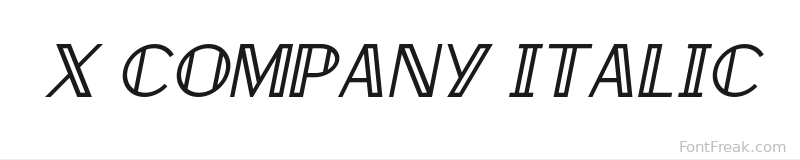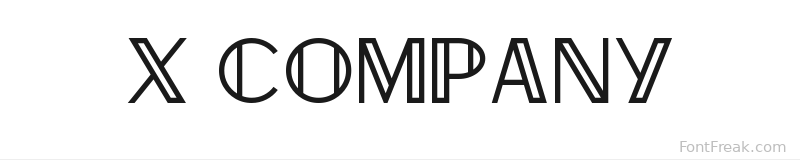
X Company
X Company Italic
About X Company
Introducing the X Company font by GGBot, a stunning example of modern typography that combines elegance with versatility. This font belongs to the sans-serif category, characterized by its clean and contemporary lines. The X Company font features a balanced stroke weight, ensuring clarity and readability in various sizes. The design exhibits a subtle contrast between thick and thin strokes, providing a dynamic visual appeal while maintaining simplicity. The spacing is meticulously crafted, allowing for optimal legibility in both digital and print formats.
Ideal for a range of creative applications, the X Company font is perfect for branding projects, restaurant menus, and promotional materials. Its modern aesthetic makes it a fantastic choice for tech startups or contemporary businesses looking to make a strong impression. Additionally, it can be effectively used in social media graphics and website headers, where a clean and professional appearance is paramount. Graphic designers and content creators will find this font particularly appealing due to its versatility and ease of integration into various design frameworks.
The target audience for the X Company font includes small business owners seeking to enhance their brand identity, as well as freelance designers aiming to elevate their projects with a touch of sophistication. The font is available as a freeware, making it accessible for anyone looking to incorporate a stylish typeface into their work.
What sets the X Company font apart is its ability to seamlessly blend modernity with functionality. This font stands out not only for its aesthetic charm but also for its adaptability, making it a valuable addition to any designer's toolkit. Don't miss the opportunity to elevate your projects with the X Company font free download, and experience its unique qualities for yourself.